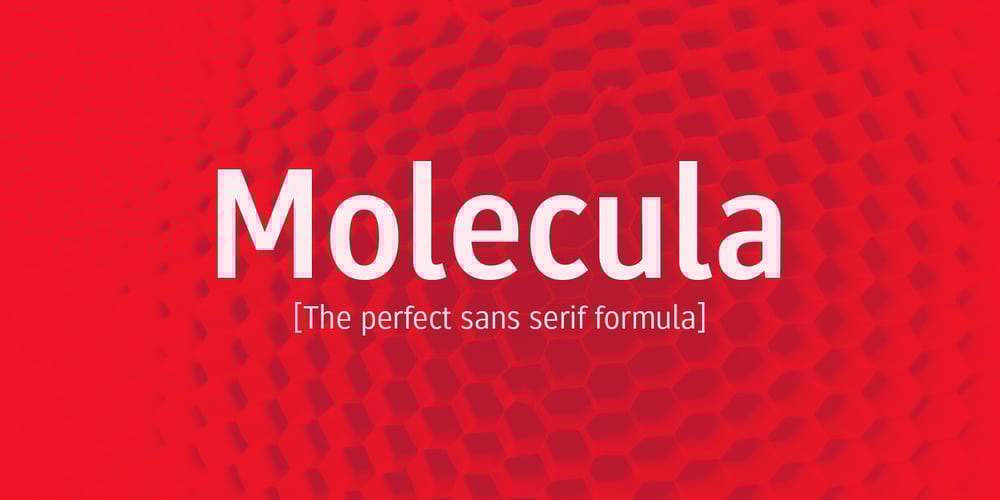
Molecula Font Family was designed by Erick Dahl and published by Northeast Type Foundry. Molecula contains 18 styles and family package options. Molecula is grotesque sans serif of slightly condensed proportions and humanist-grotesk features. The family features 9 weights from Thin to Black, each of which has an italic. The character set is robust, covering extended latin. All completely equipped with opentype features, alternative glyphs, fractions, lining numbers, small caps, subscript and superscript. Molecula has been designed for advertising, branding, packaging or anywhere a clean and contemporary voice is needed.